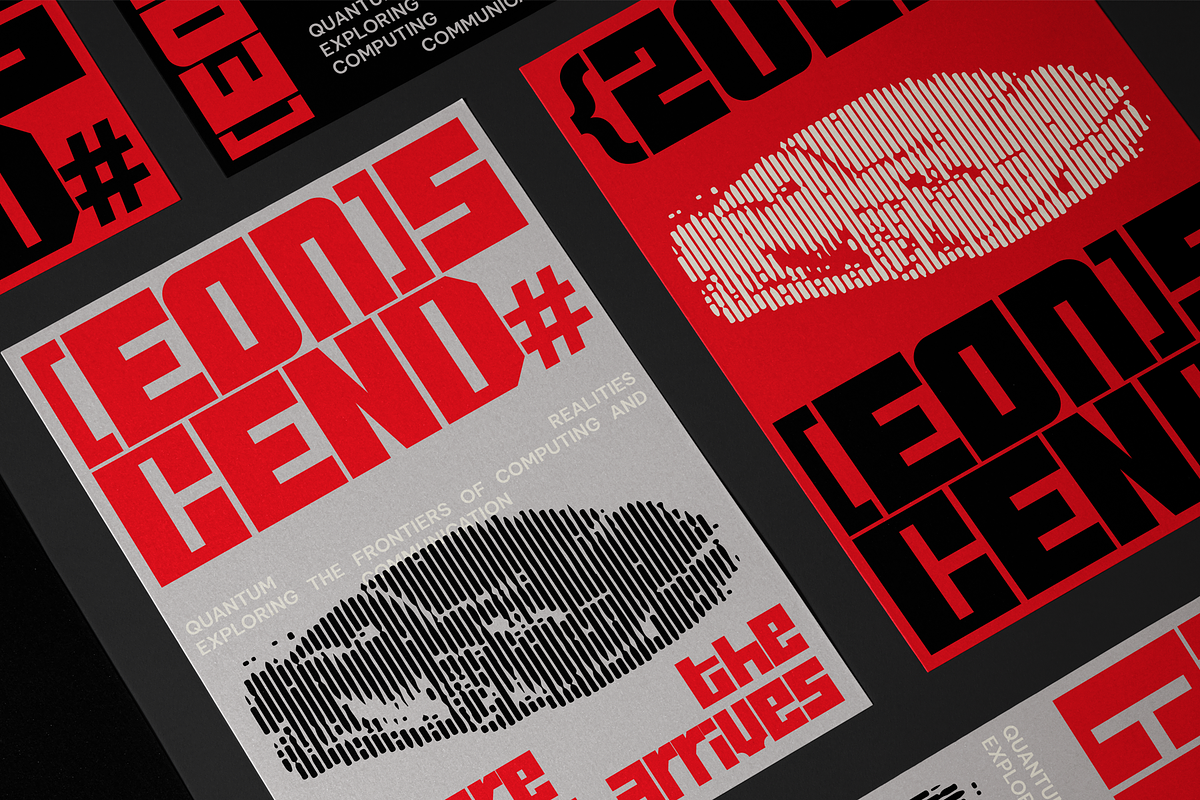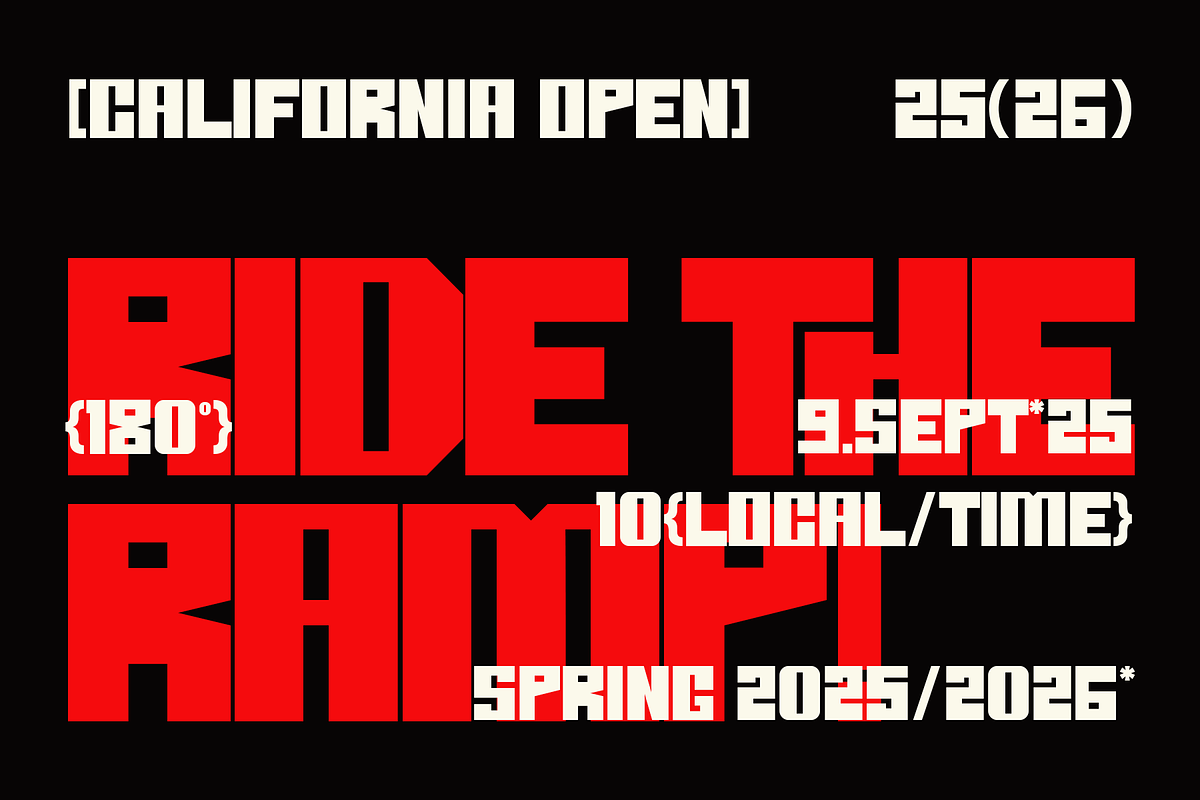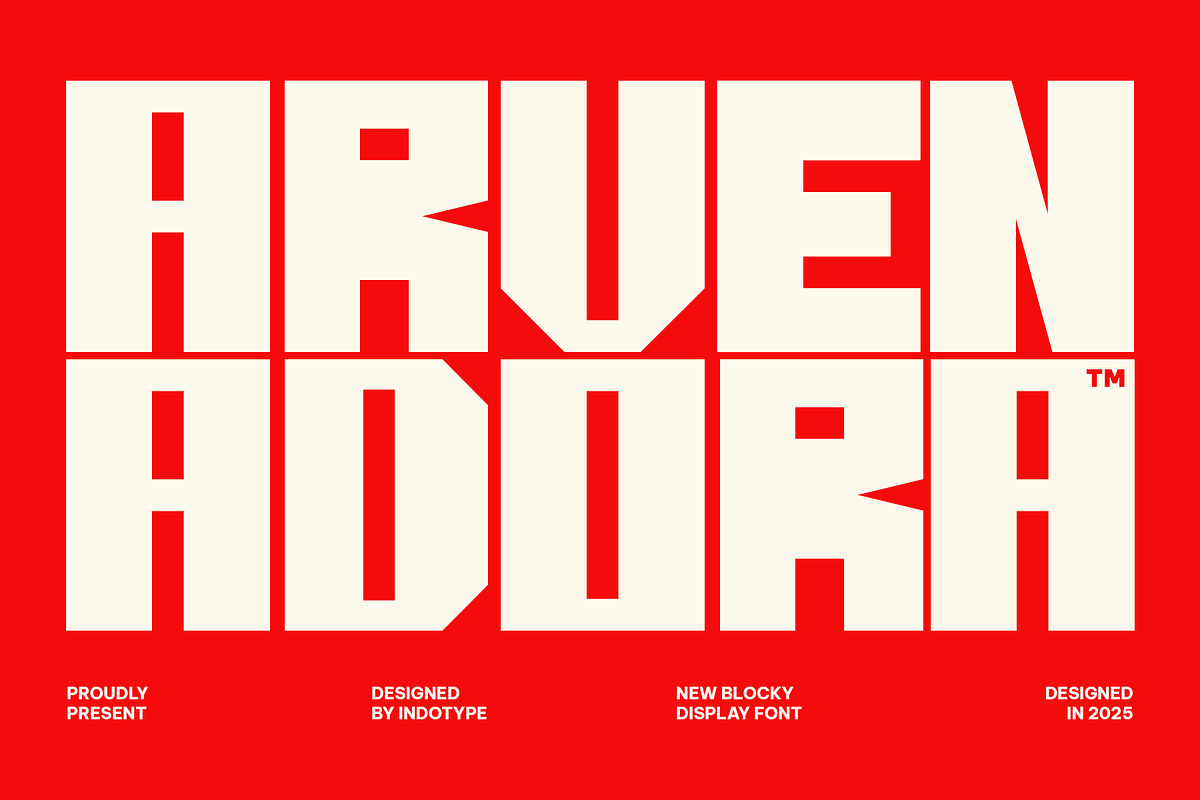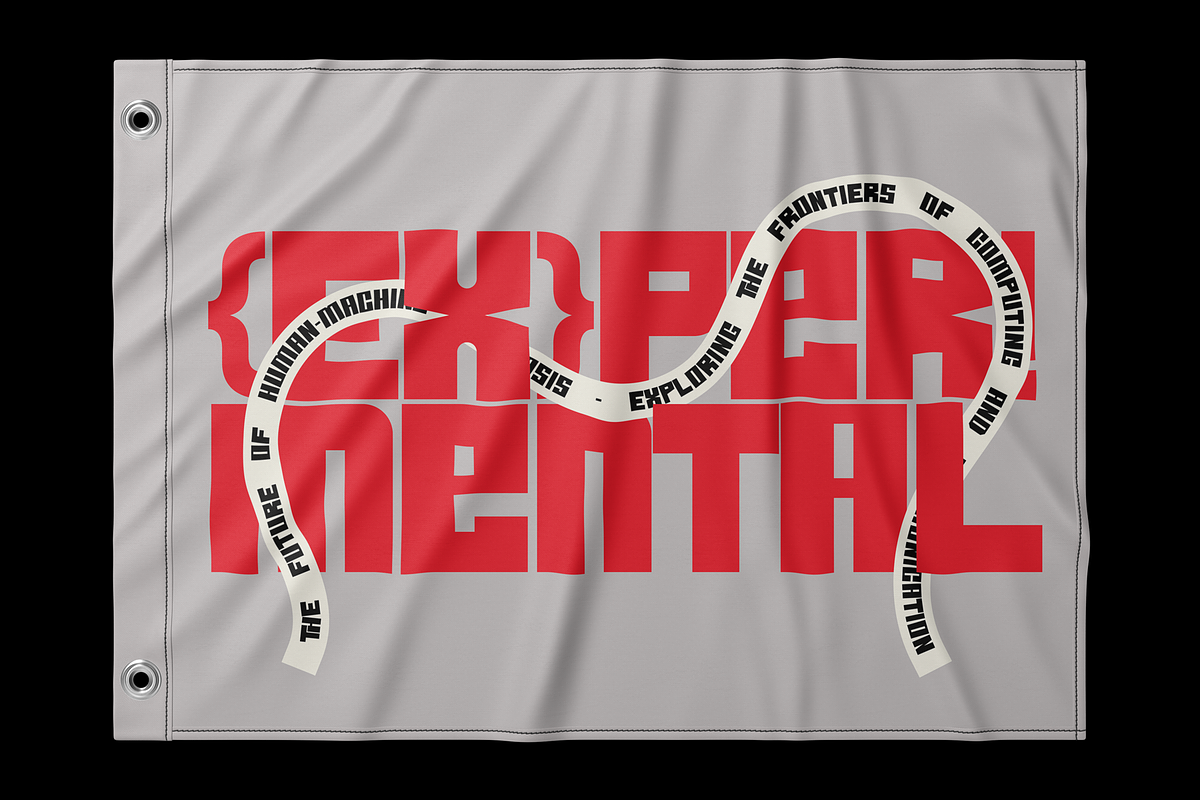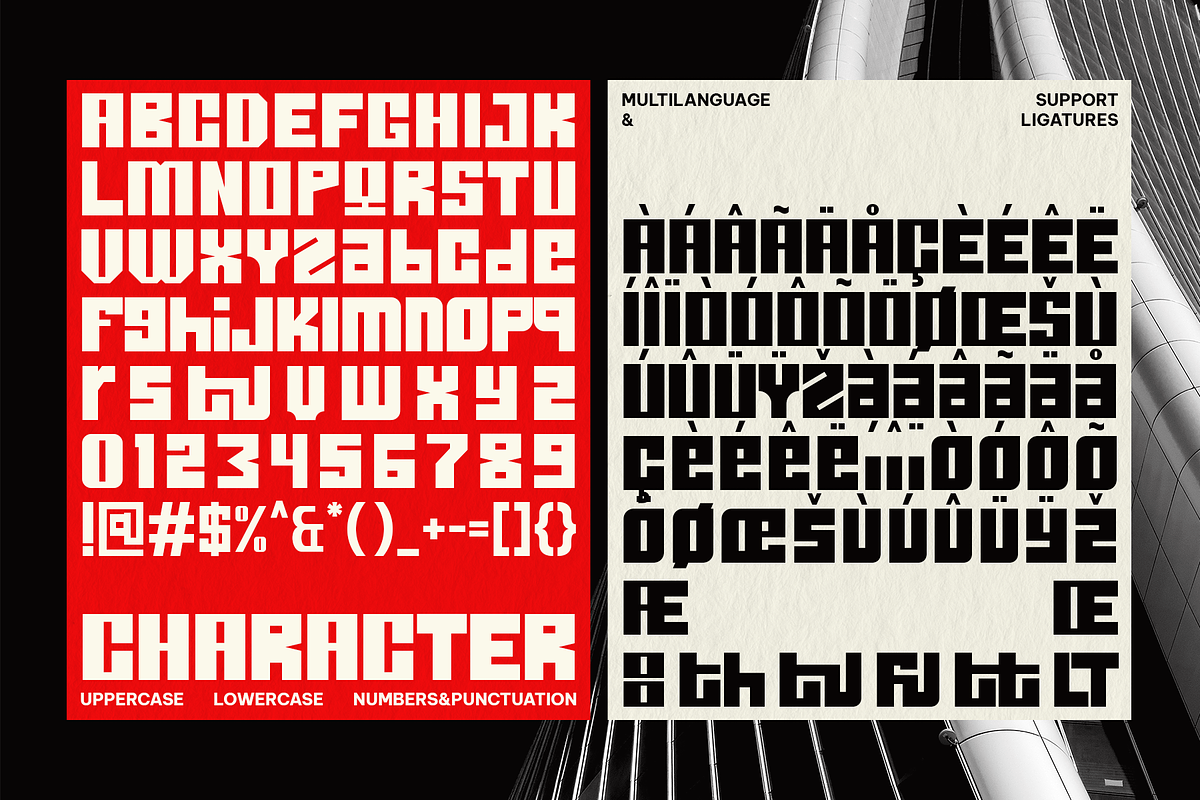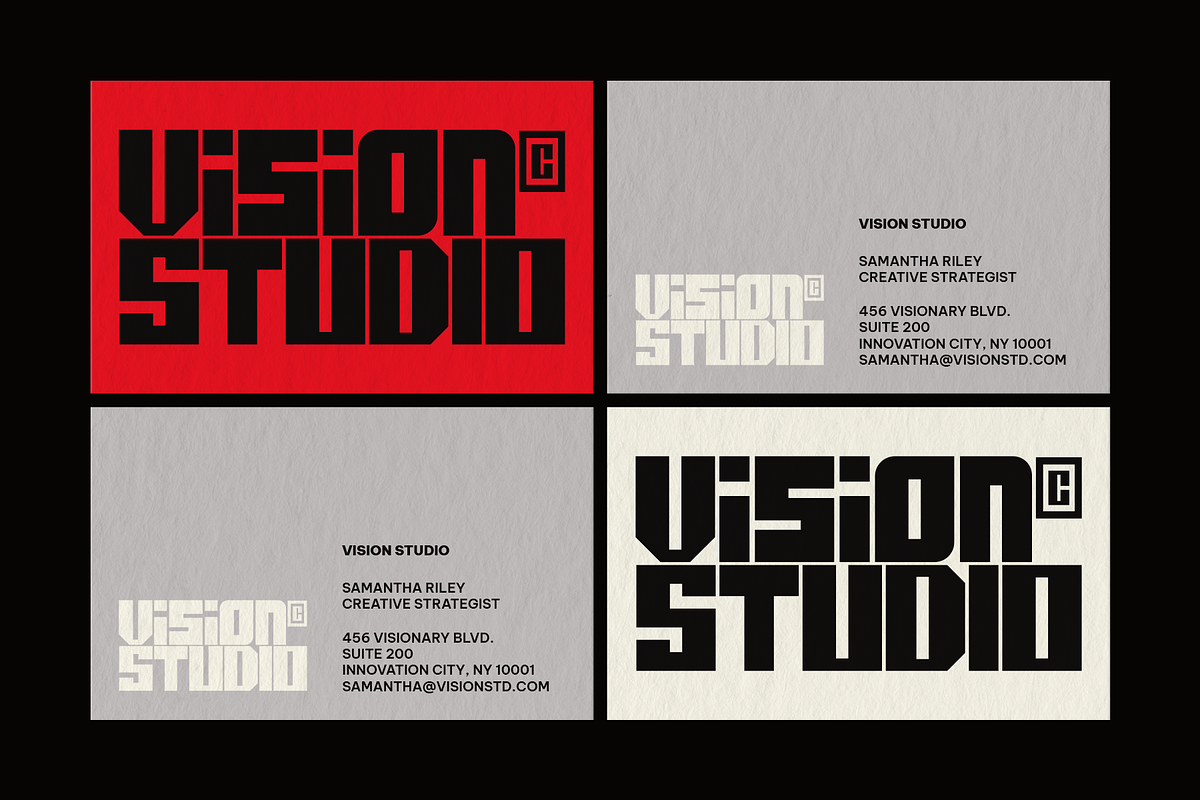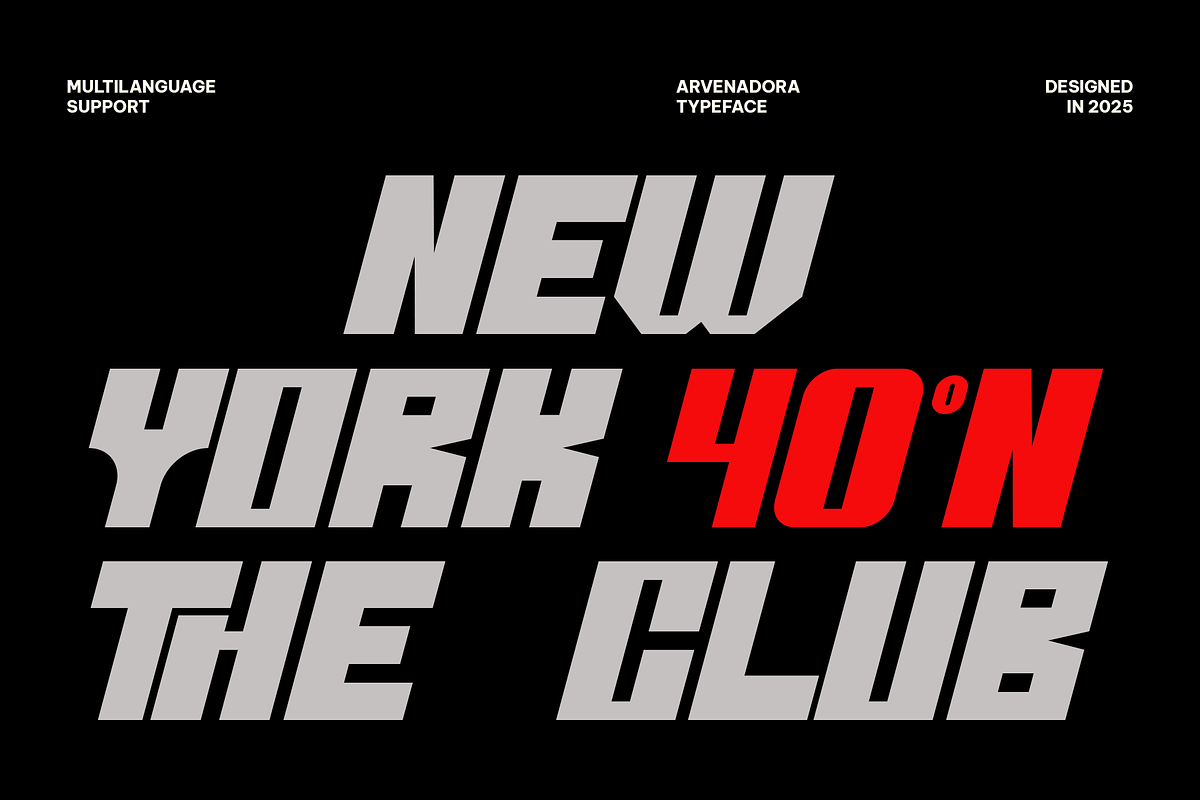
Arvenadora - Blocky Display Font
Arvenadora is a bold blocky display font that commands attention with its geometric structure and powerful presence. Featuring sharp angles, rigid proportions, and impactful forms, this typeface is designed for projects that require strength, authority, and clarity. Its block-like letterforms make Arvenadora ideal for headlines, posters, sports branding, logos, signage, and modern digital graphics. Every character is designed to deliver maximum impact, ensuring that your message stands out loud and clear. With multilingual support and a complete glyph set, Arvenadora provides flexibility across diverse languages and design needs. Designed by Indotype in 2025, this font isn’t just a typeface — it’s a bold statement for daring designers.